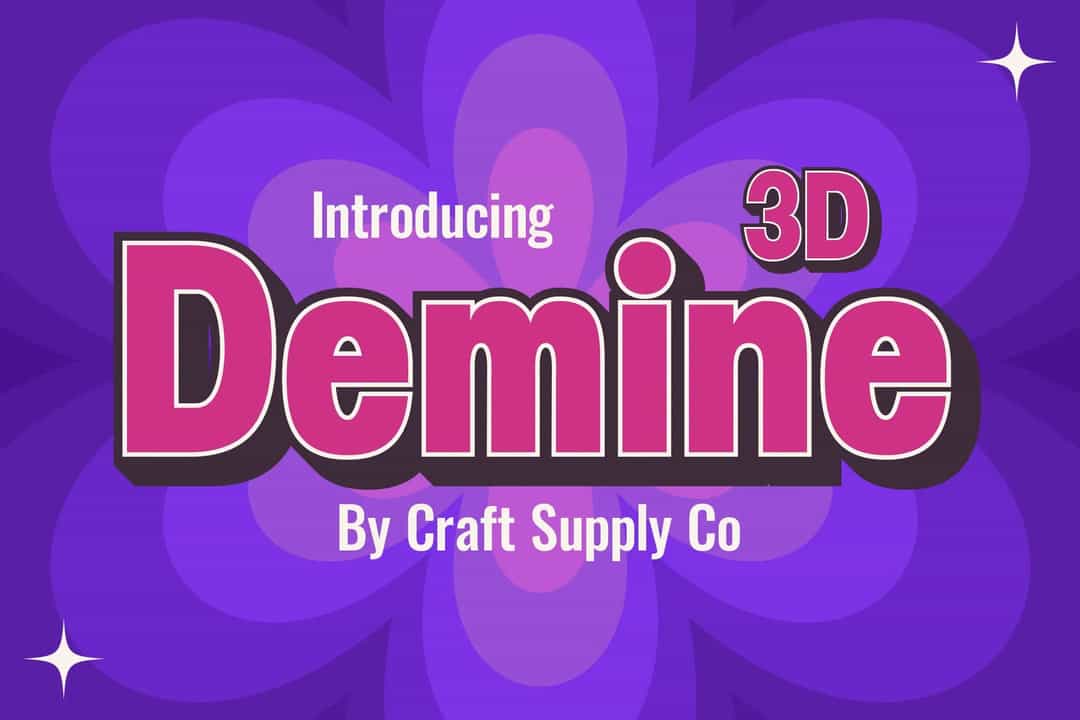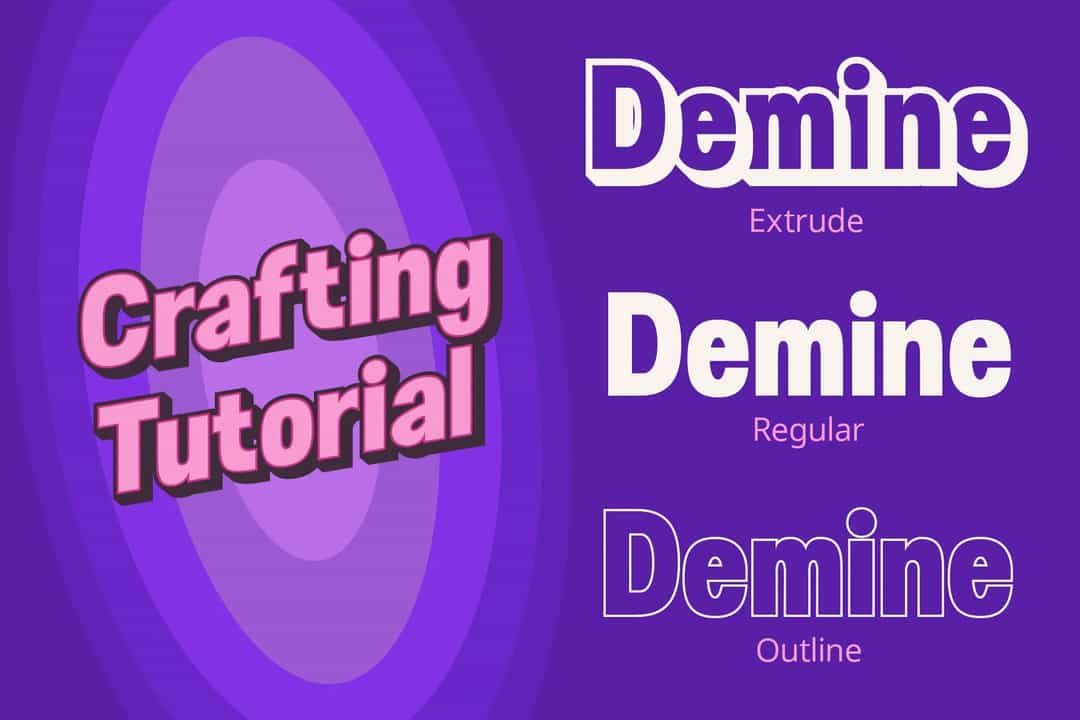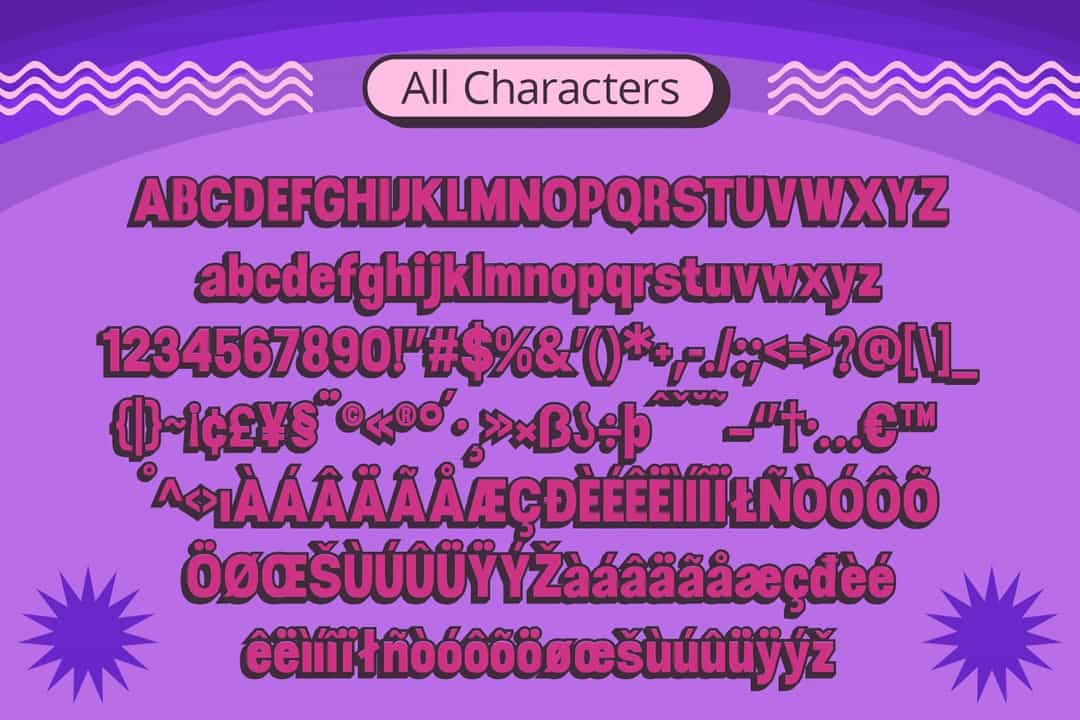
Discover Demine 3D Font, part of the Sans Serif 3D Fonts collection—a versatile and unique font perfect for adding a personal touch to your projects. Download it for free and enjoy crafting designs with style, from invitations to social media posts. This font is available exclusively for personal use, giving you the freedom to create without limits. Unlock your creativity with Demine 3D Font today!
Demine 3D font features striking and heavy-looking shapes that immediately draw the eye and grab viewer attention. Experience this font like never before with its mesmerizing 3D effect! Each letter is meticulously handcrafted for depth and dimension in your layouts. Demine 3D’s inherent vibrancy makes it the ideal solution when your message must be bold and irresistible.